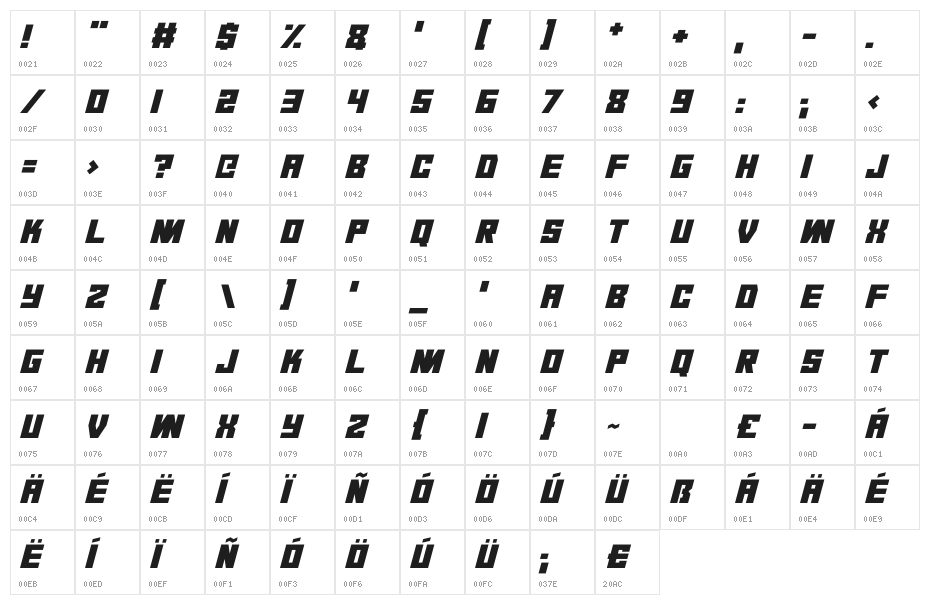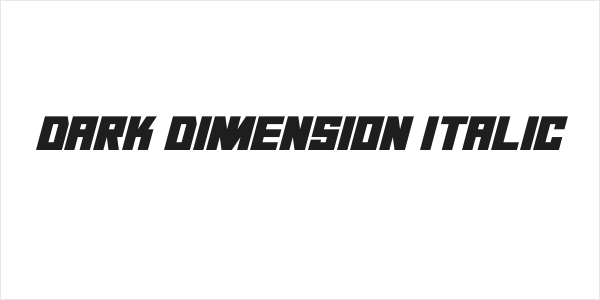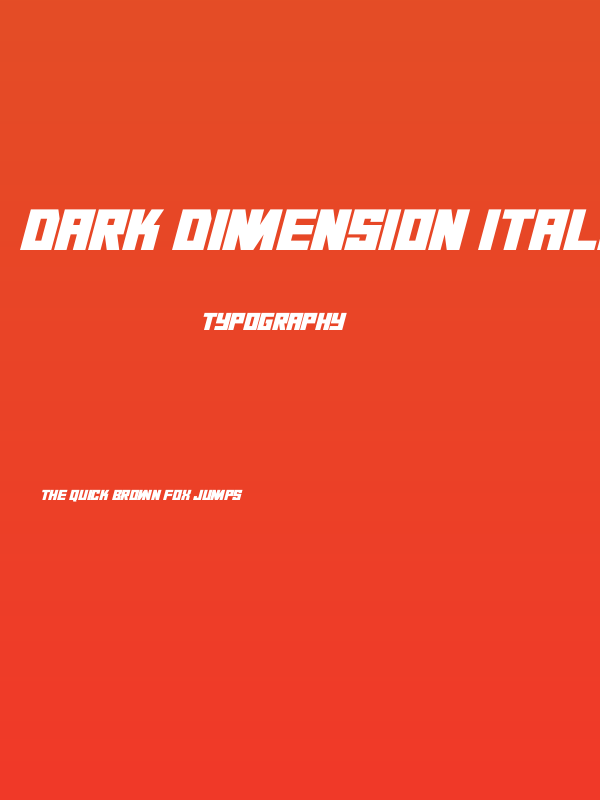
Dark Dimension Italic Font
Dark Dimension Italic Description
This font features a bold and dynamic style with a strong italic slant, giving it a sense of motion and energy. The characters are wide and blocky, with sharp angles and a futuristic appearance. The uppercase and lowercase letters maintain a consistent weight, contributing to a cohesive look. The numbers and special characters follow the same design principles, ensuring uniformity across all glyphs. The font's boldness and unique style make it stand out, suitable for projects that require a modern and impactful visual presence.
| Proposed Projects | Ideal for video game titles, movie posters, sports branding, and tech-related designs. |